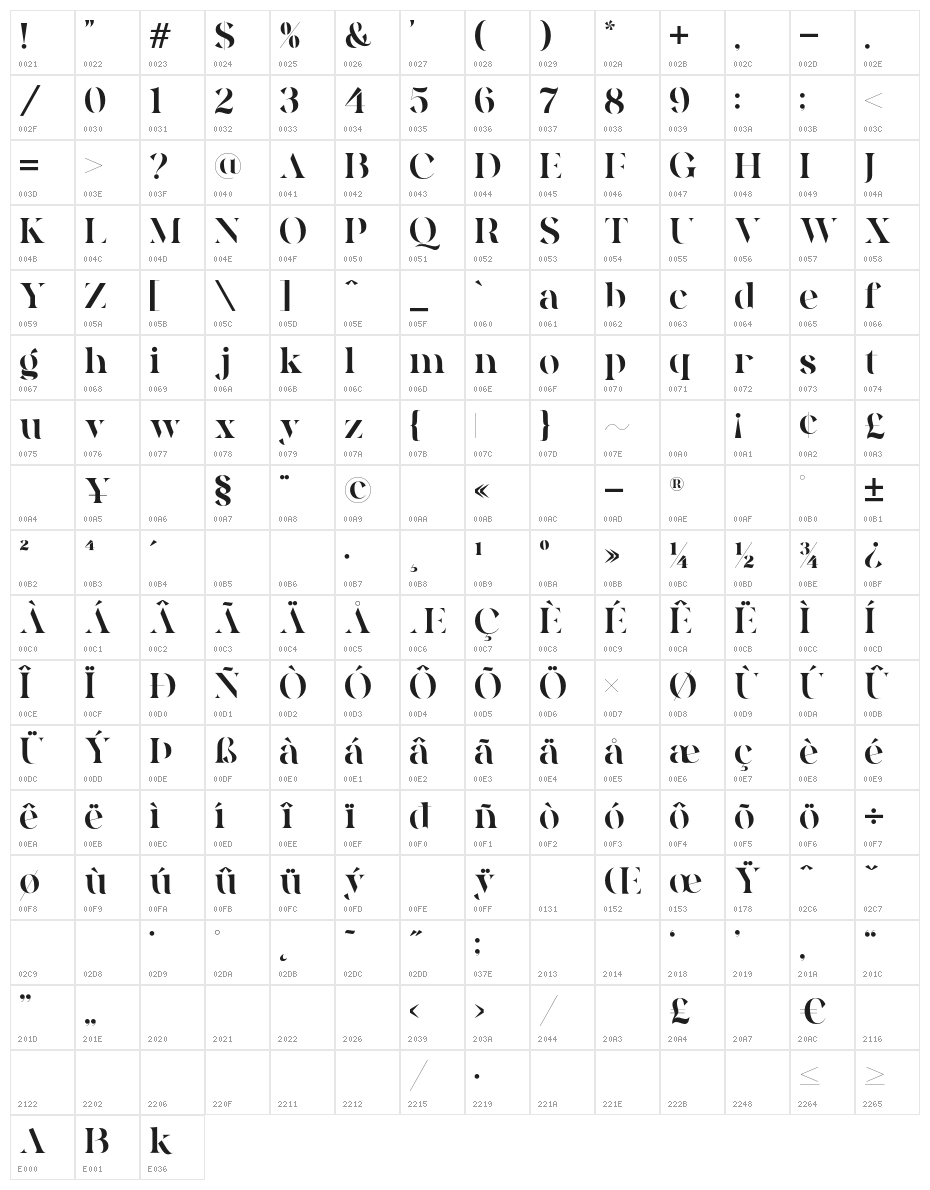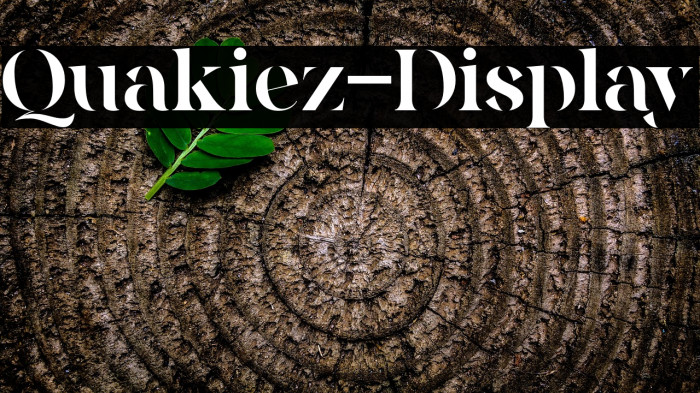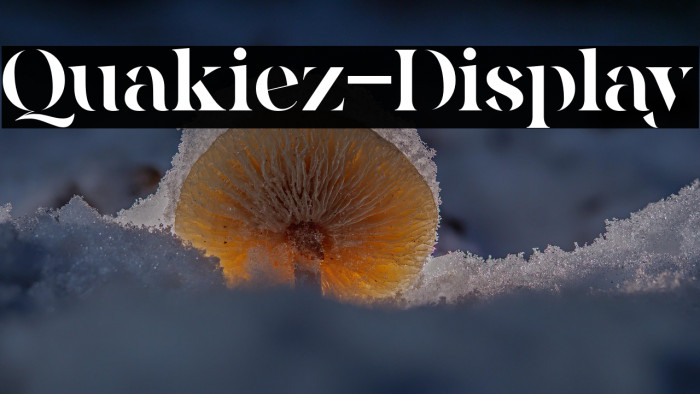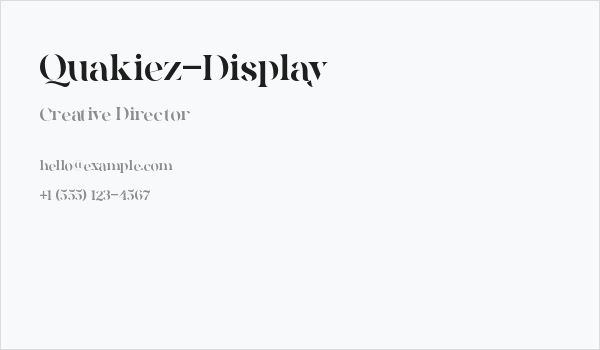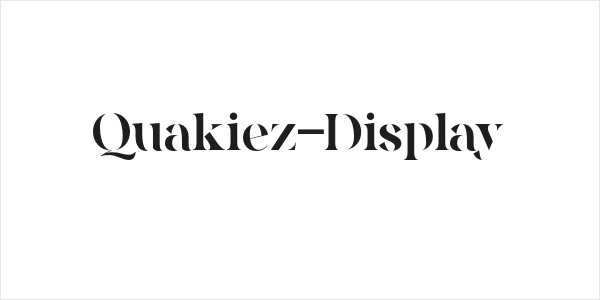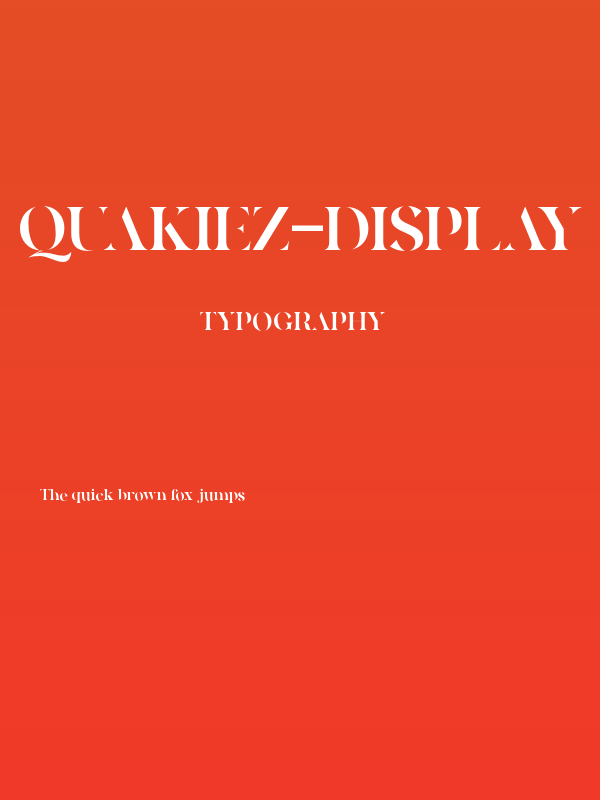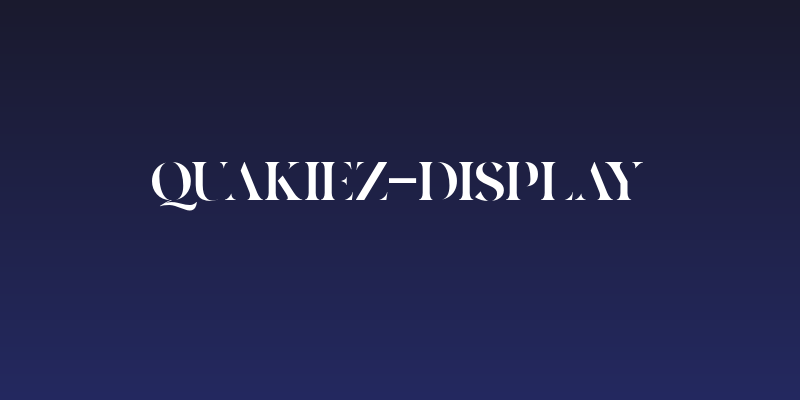
Quakiez-Display Font
Quakiez-Display Description
This font exhibits a bold and striking appearance with high contrast between thick and thin strokes, creating a dramatic and eye-catching effect. The characters are sharply defined with angular cuts and unique serifs that add a modern twist to the traditional serif style. The uppercase letters are particularly prominent, with a strong presence that commands attention. The lowercase letters maintain the same boldness, ensuring consistency across the typeface. Numbers and special characters are designed with the same attention to detail, making them stand out. The overall design is both artistic and functional, suitable for a variety of creative applications.
| Proposed Projects | Ideal for branding, editorial design, posters, and any project requiring a bold statement. |